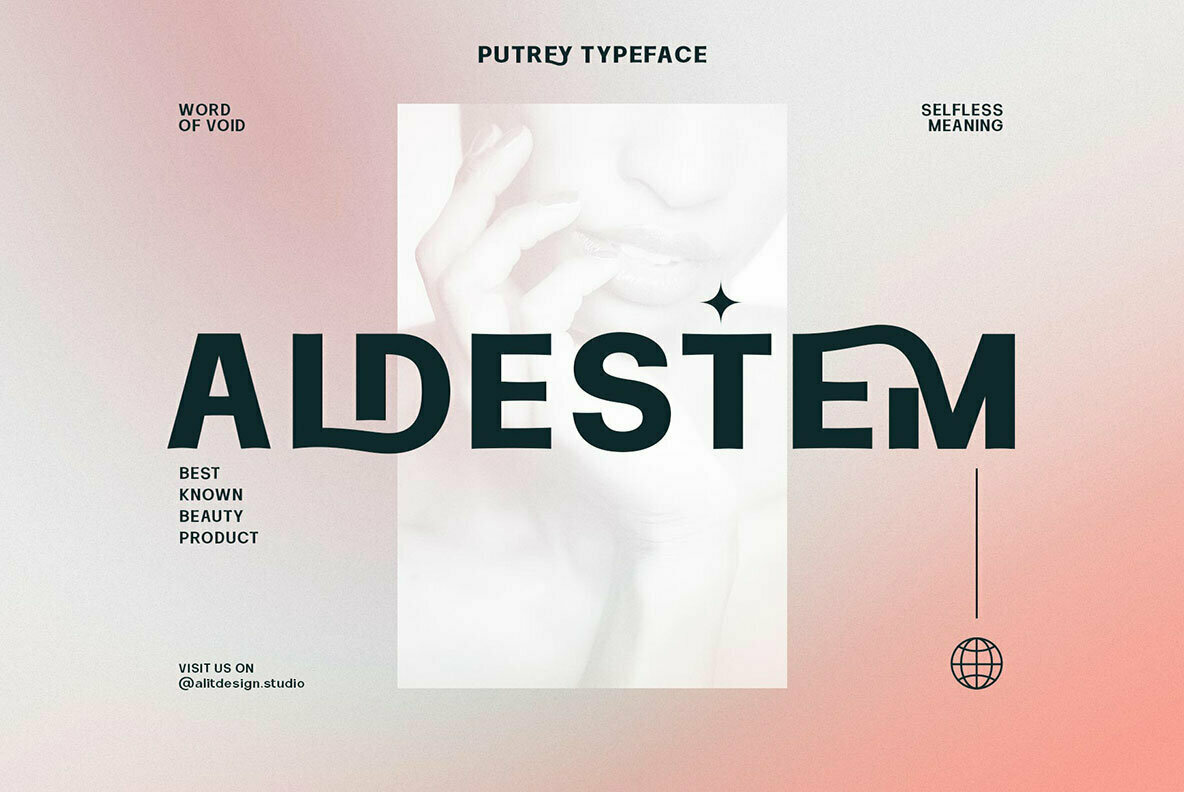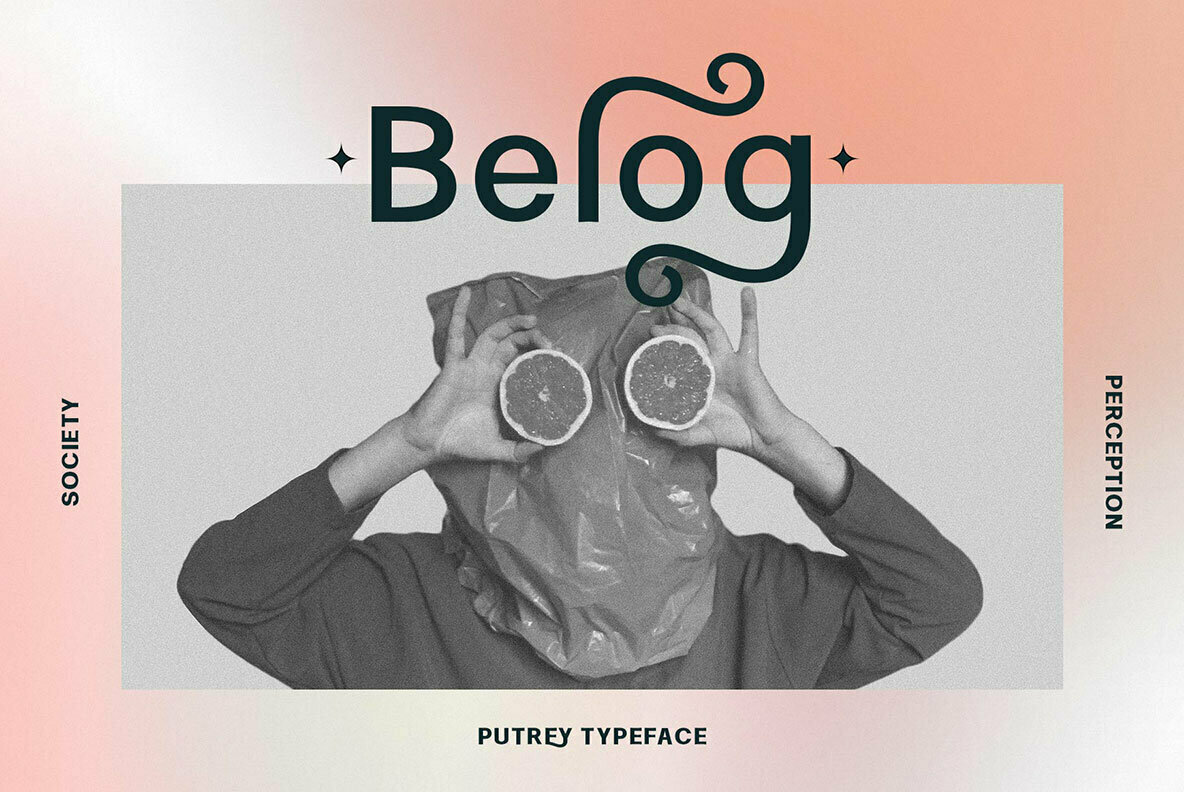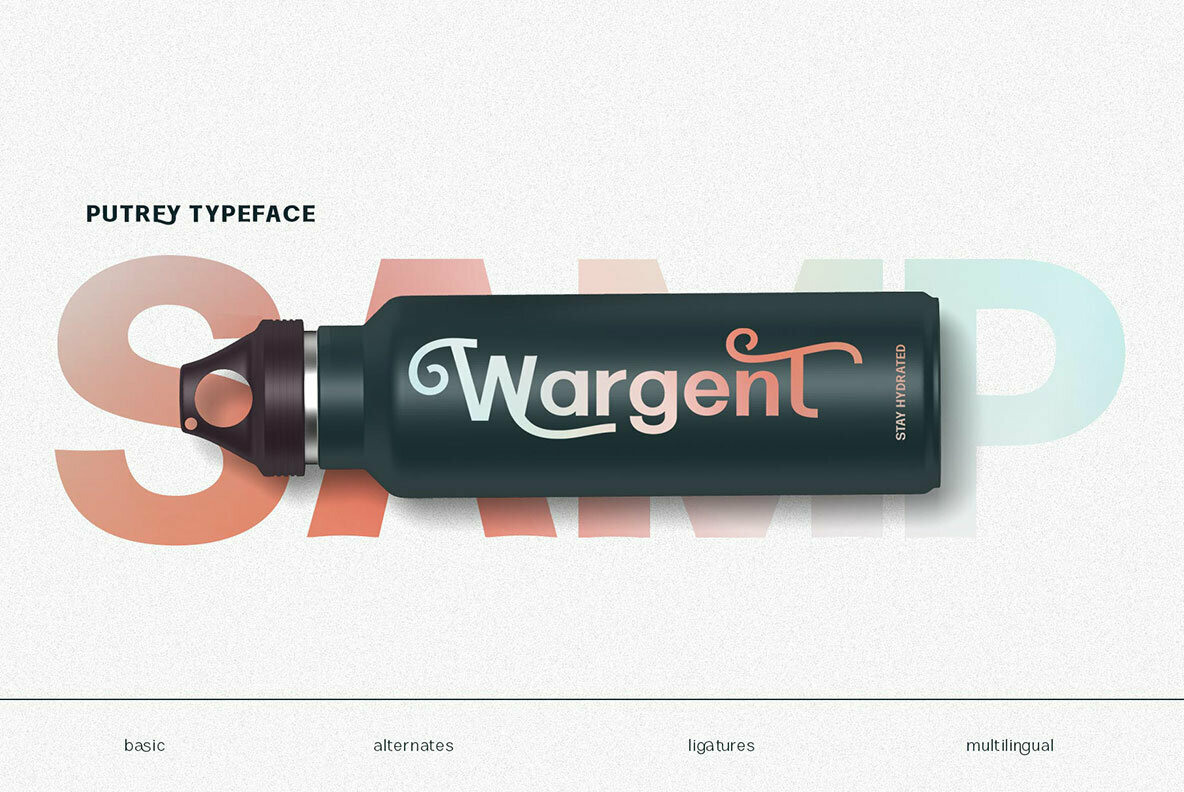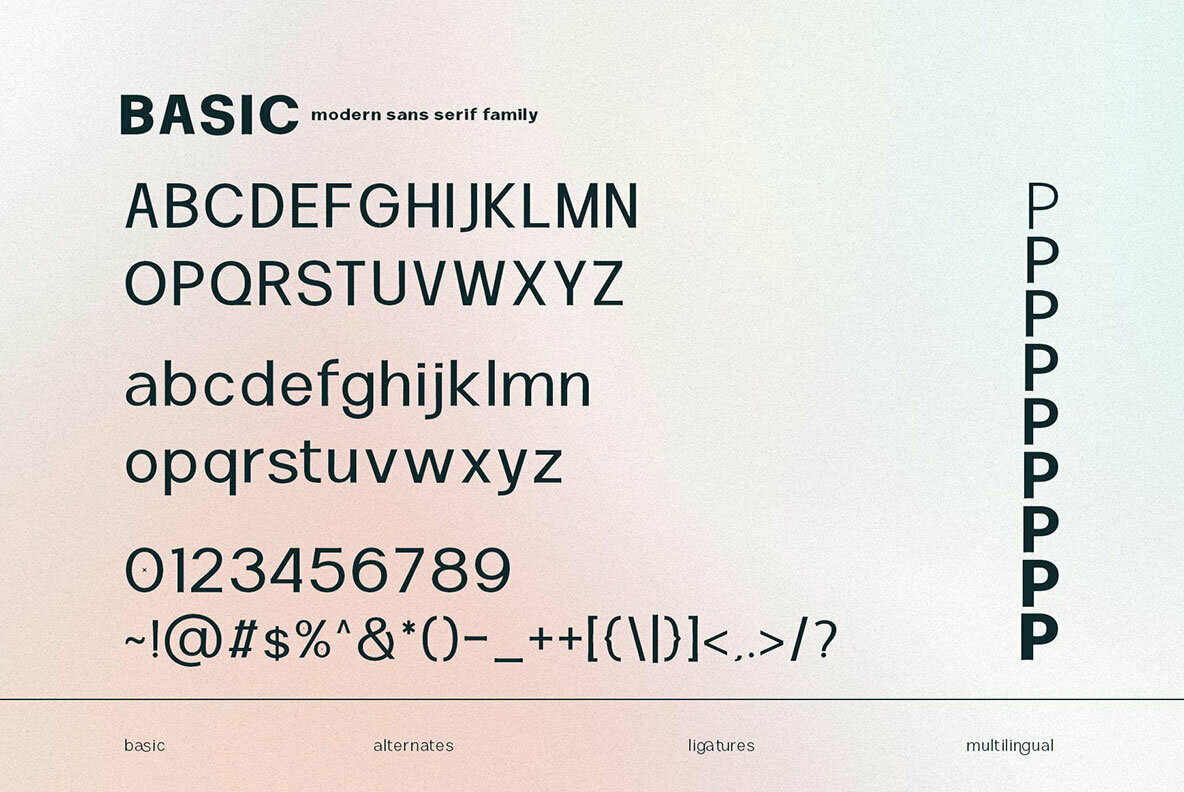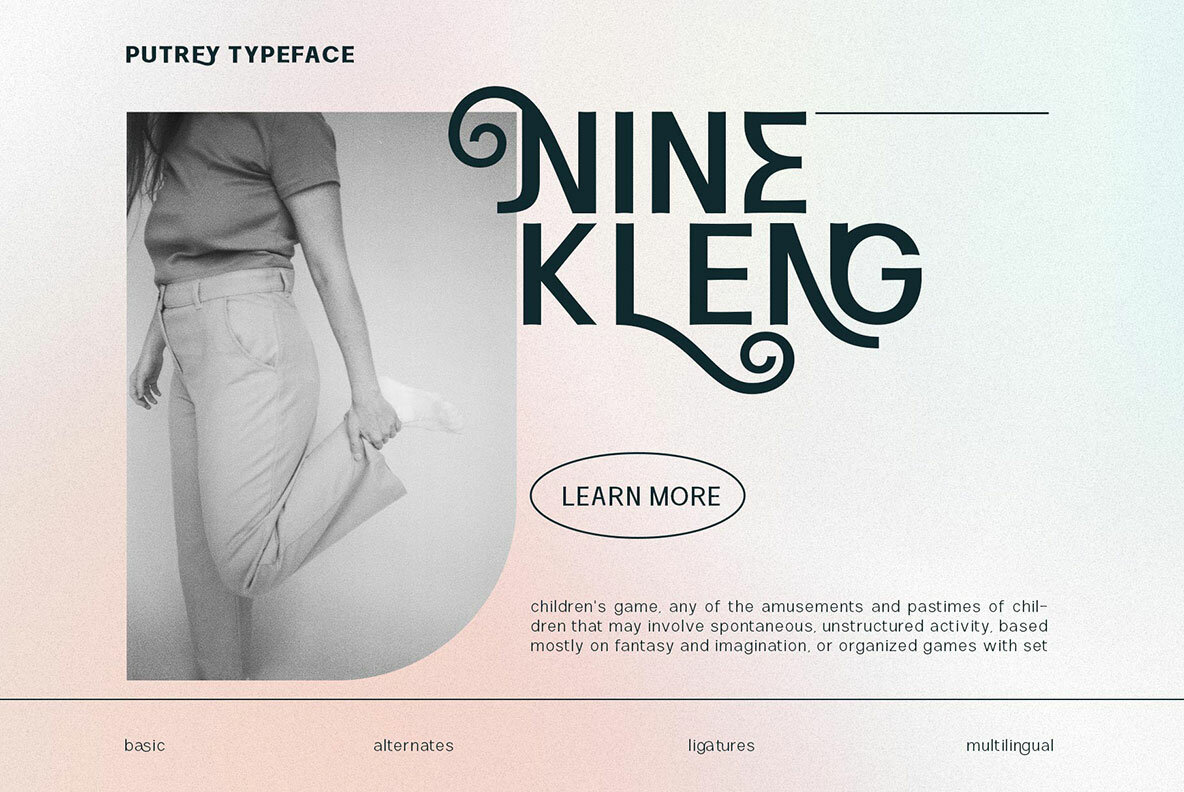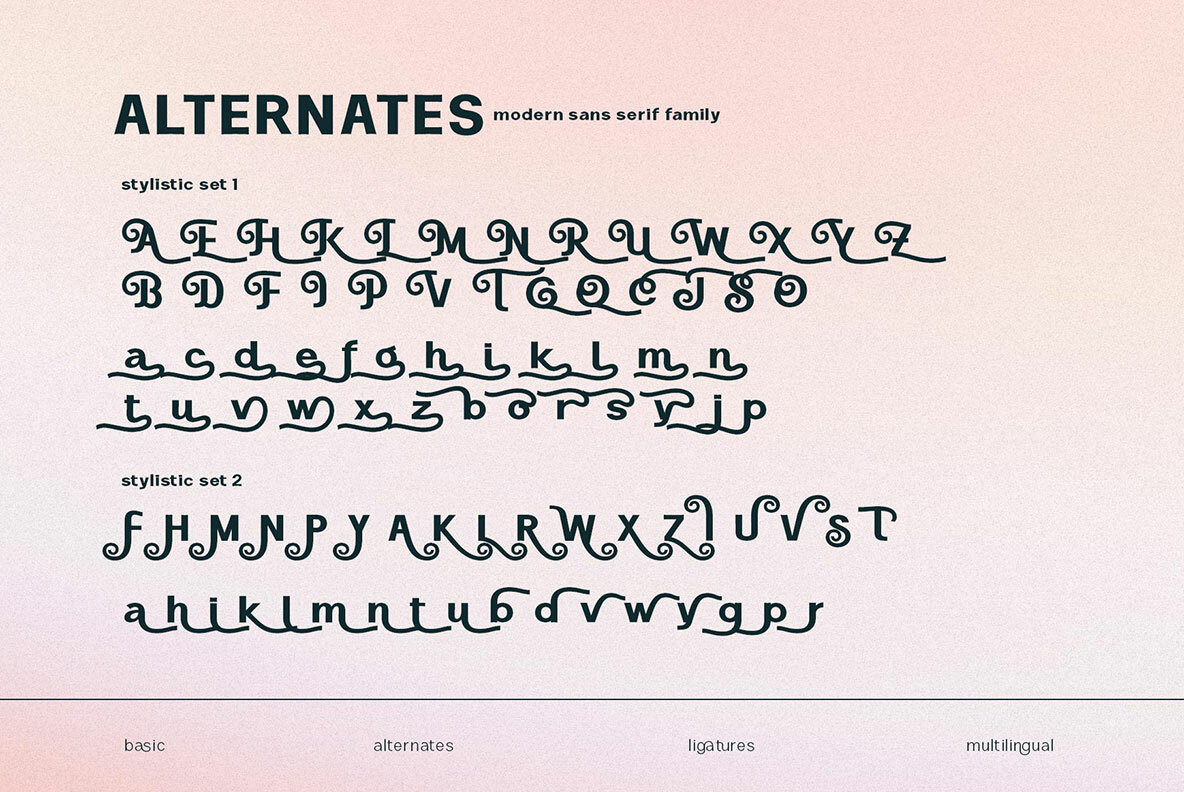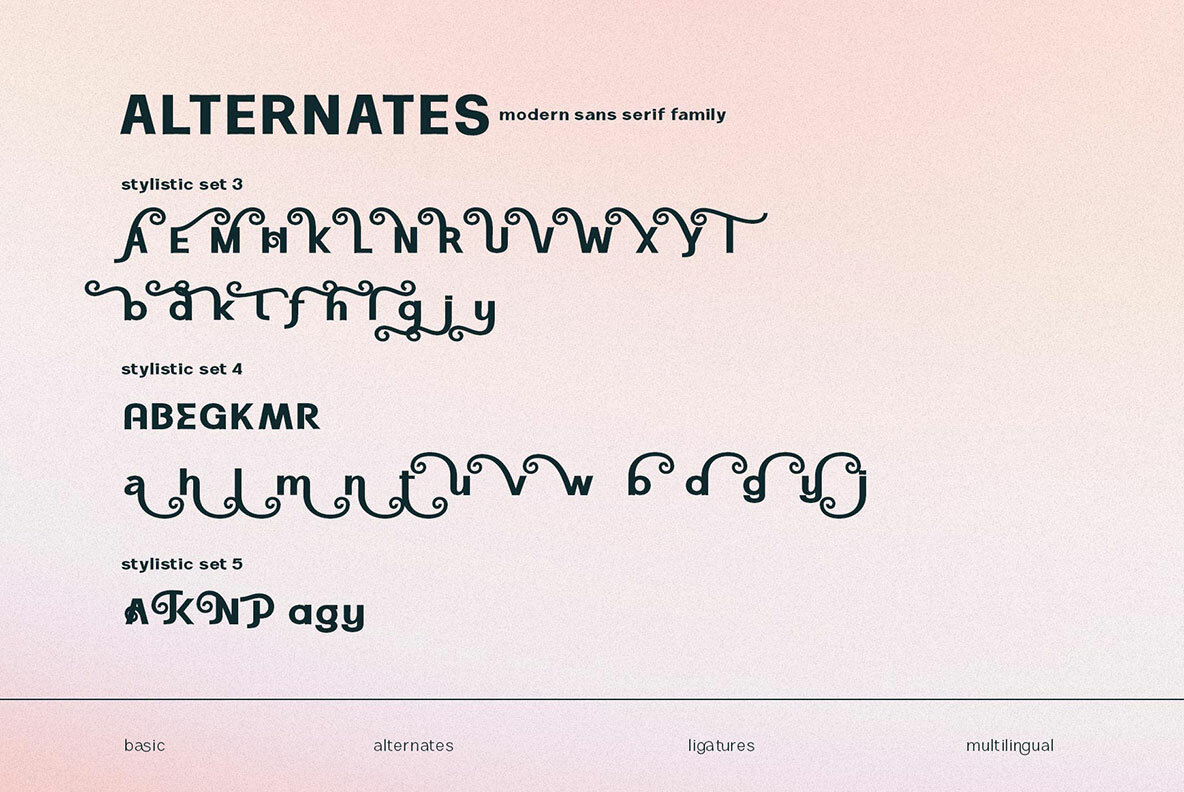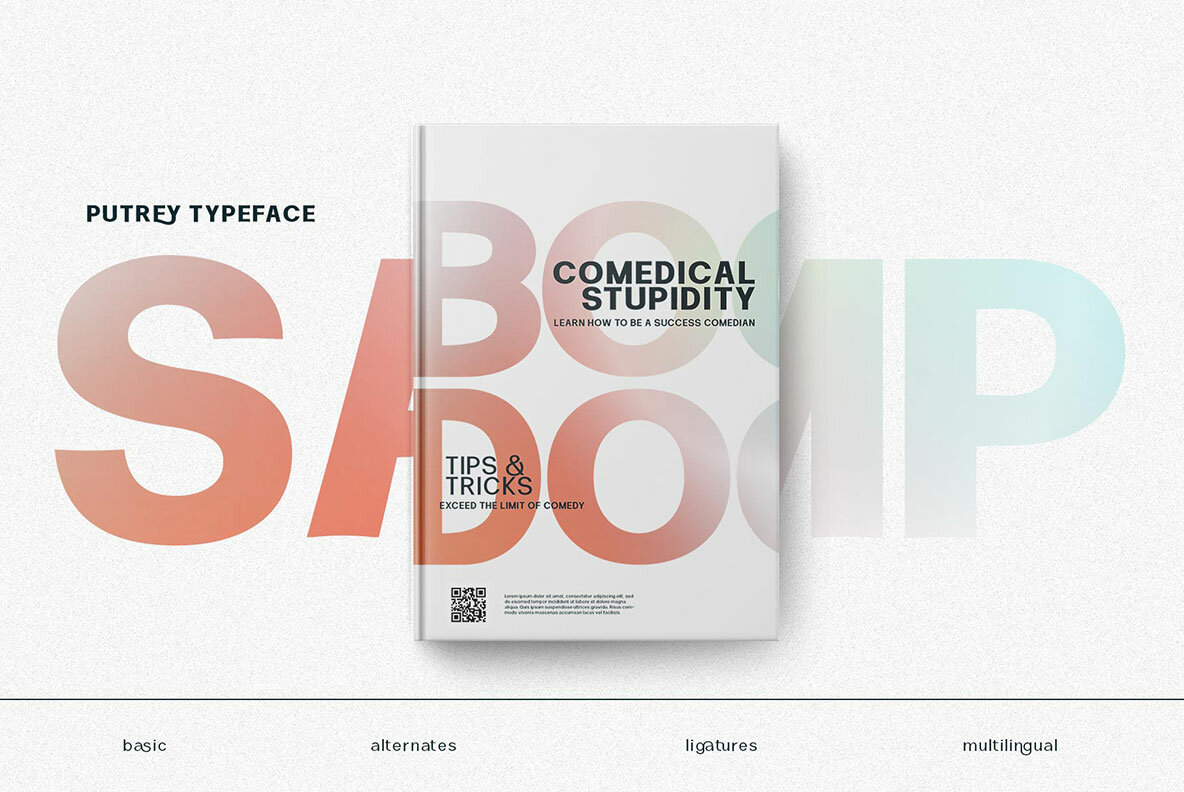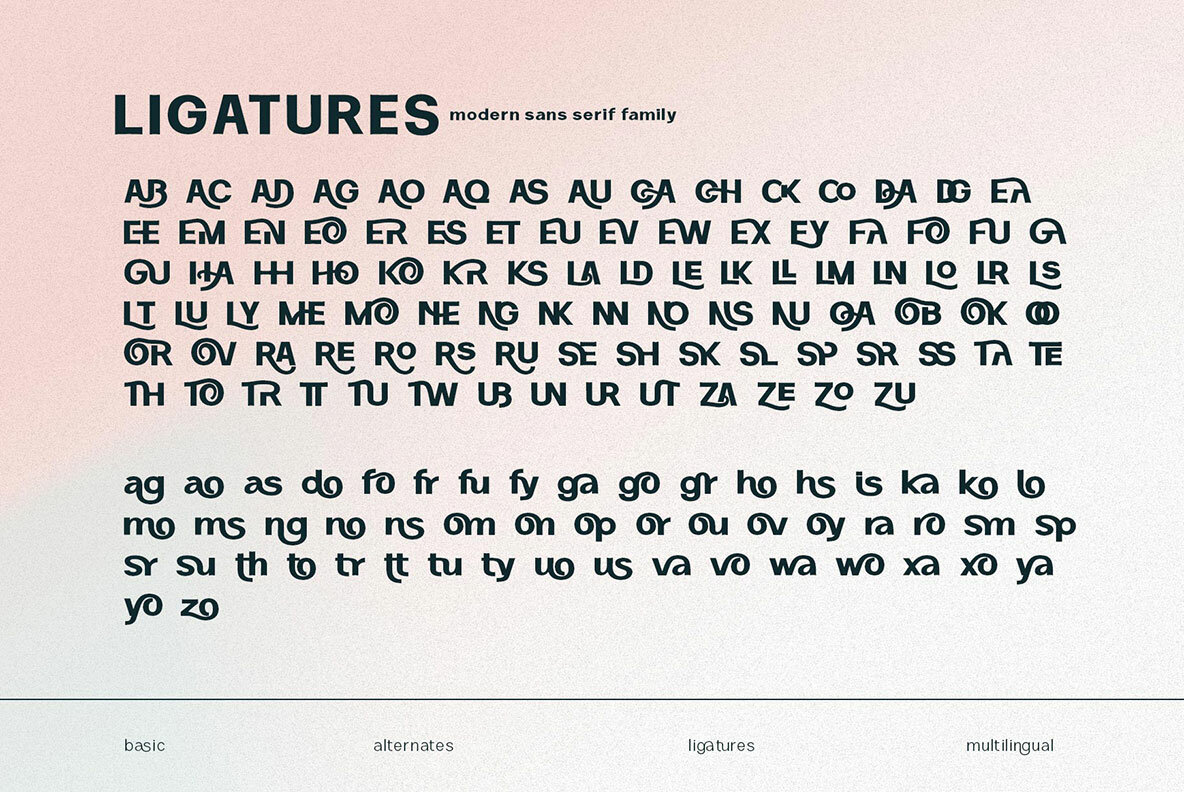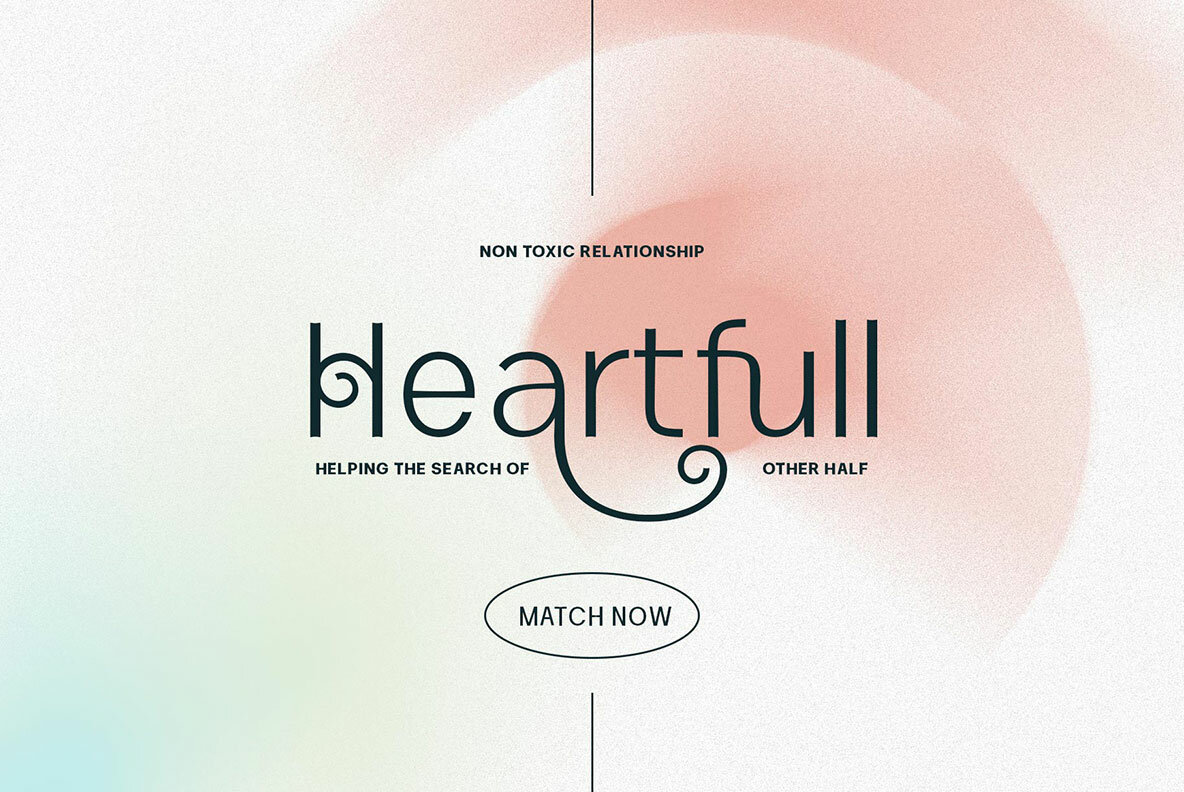
Putrey Font
Putriy Font is a unique and creative font that will make your design stand out. The sans-serif style adopted by the creators of this typeface has been based on 2022 trends, with an alternative swash version to choose from in order for each letter's shape be more interesting than before! You'll also appreciate how many ligatures have been included within their 700+ glyphs; perfect if you're looking at using it as headline or description text where lightness/ darkness matters most - just tell us which one suits what purpose best when customizing yours today!